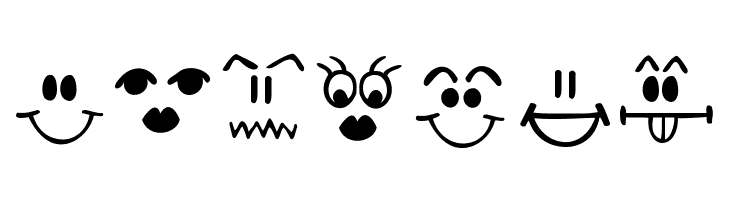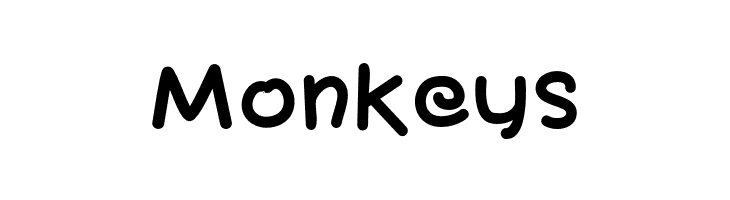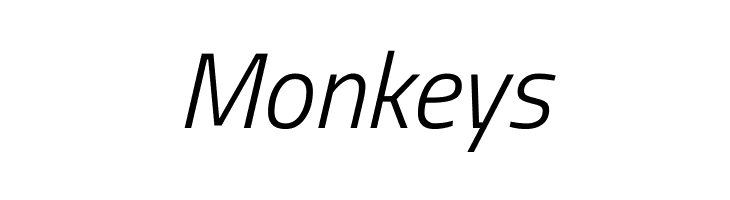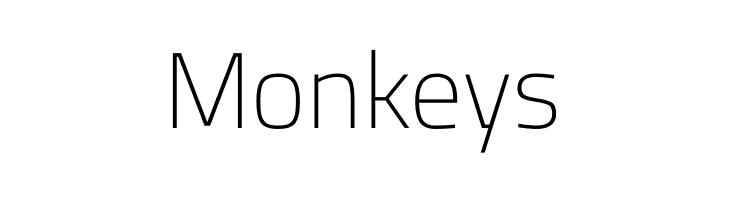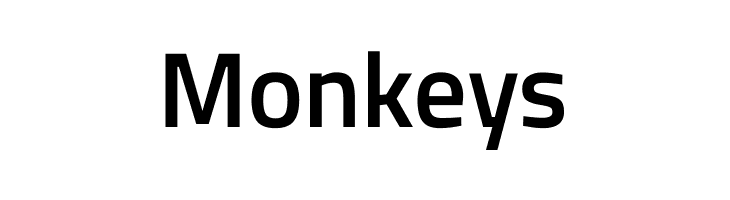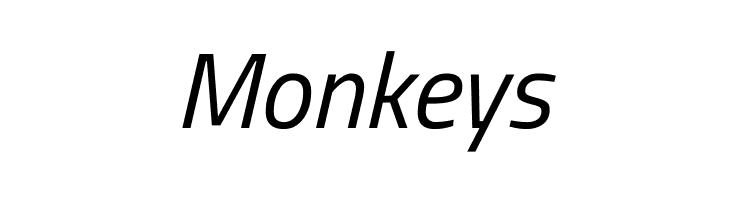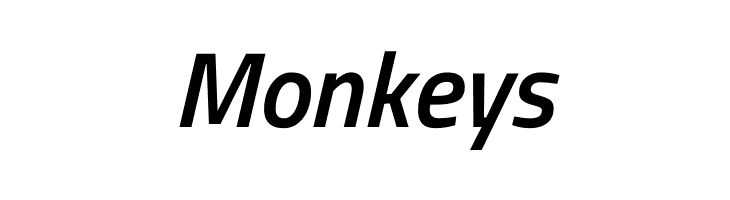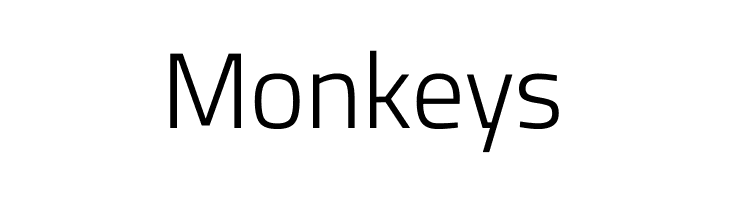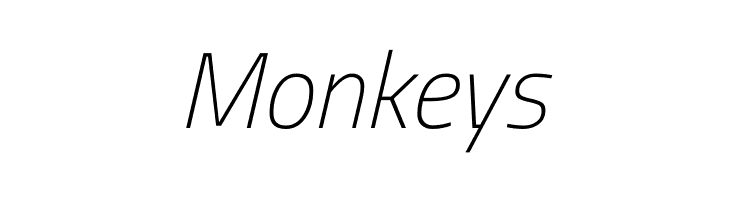
• Titillium WebItalic
A modern, italicized font with clean lines and a dynamic appearance.
• Titillium WebLight
A modern, clean sans-serif typeface with consistent stroke width and excellent readability.
• Titillium WebLight Italic
A modern, light, and italic sans-serif typeface with clean lines and excellent readability.
• Titillium WebSemiBold
A modern, geometric sans-serif font with balanced proportions and medium contrast.
• Titillium WebSemiBold Italic
A modern, semi-bold italic font with clean strokes and dynamic slant.
• Titillium WebThin
A modern, thin sans-serif font with clean lines and excellent readability.
• Titillium WebThin Italic
A thin, italicized font with a modern and elegant style.
• Today I Feel
A playful and expressive font featuring emoticons and words that convey various emotions.
• Toko Bold
A bold, playful font with rounded, hand-drawn characters.